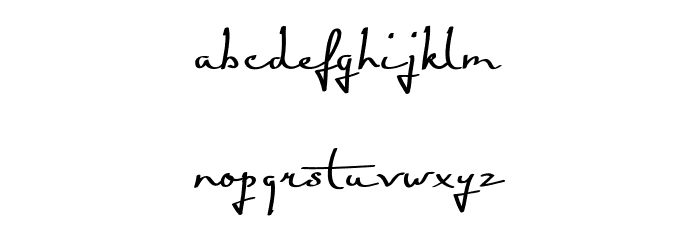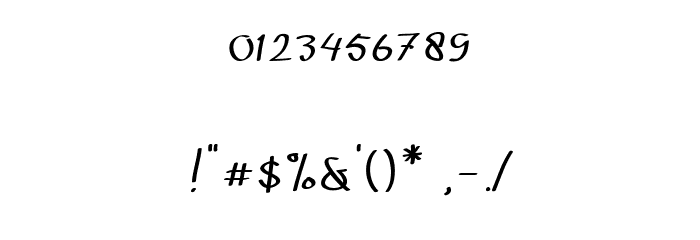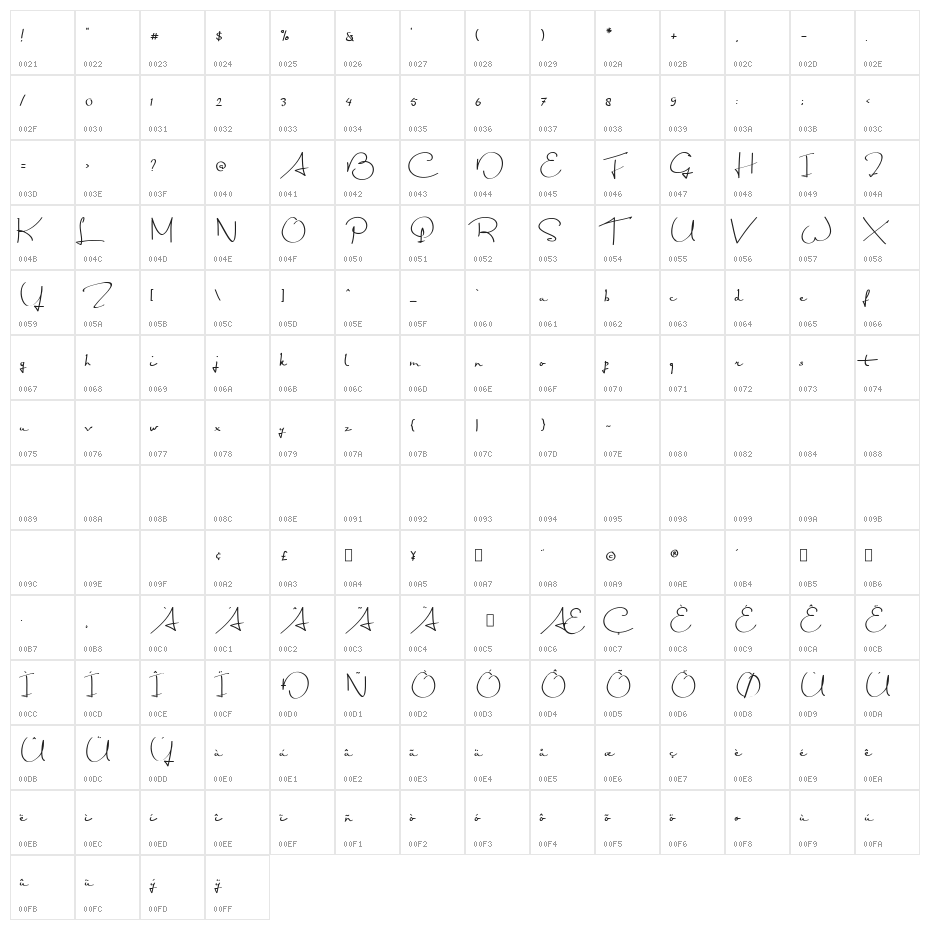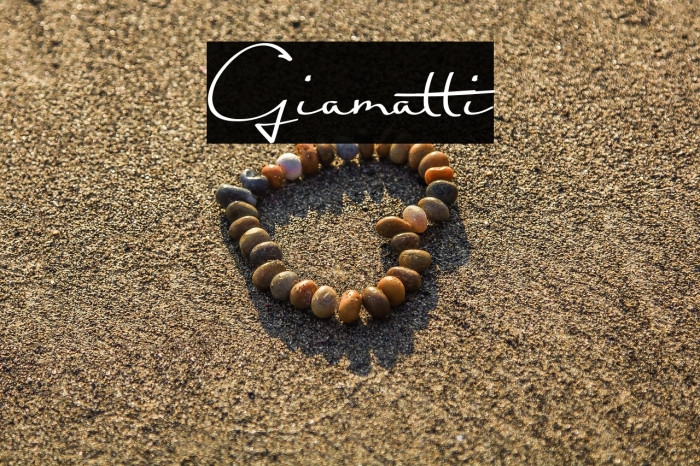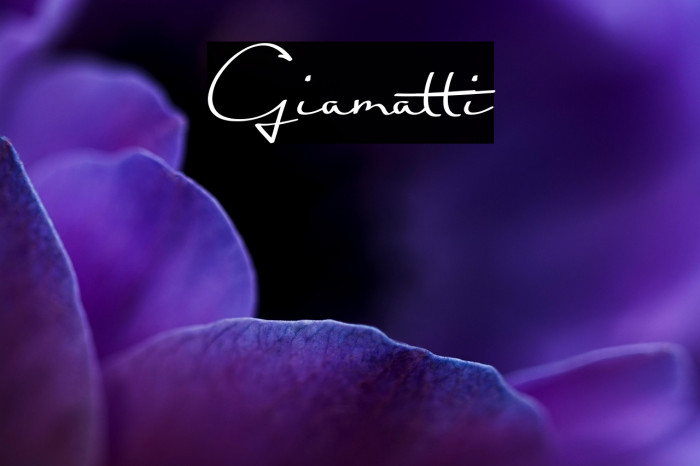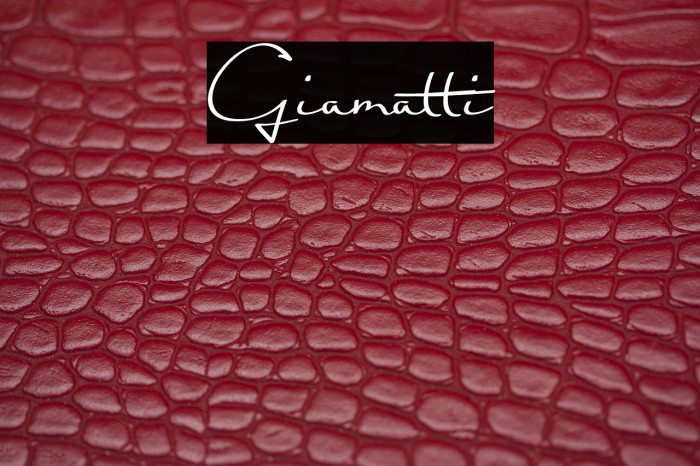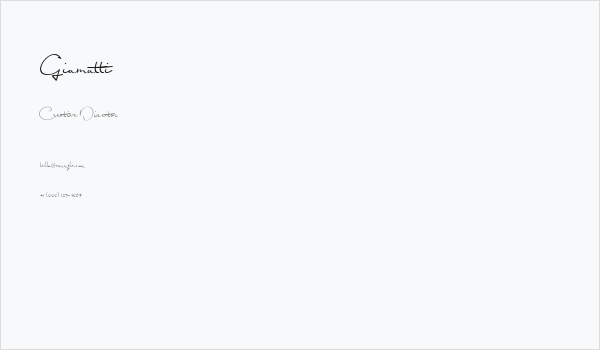
Giamatti Font
This font exhibits a unique and artistic flair, characterized by its flowing, handwritten style. The uppercase letters are bold and expressive, with exaggerated curves and strokes that give them a dynamic appearance. The lowercase letters maintain a consistent fluidity, enhancing the handwritten aesthetic. Numbers and special characters are crafted with the same attention to detail, ensuring a cohesive look across all elements. The font's overall design is both elegant and playful, making it suitable for creative projects that require a personal touch.
A dynamic, handwritten font with expressive curves and fluid strokes.
- Font: Giamatti
- Proposed Projects: Ideal for invitations, greeting cards, artistic posters, and branding materials that seek a personal and creative touch.
- Category: Handwritten
- Overall Style: Artistic, Playful
- Use Case: Logos, Invitations, Artistic Projects